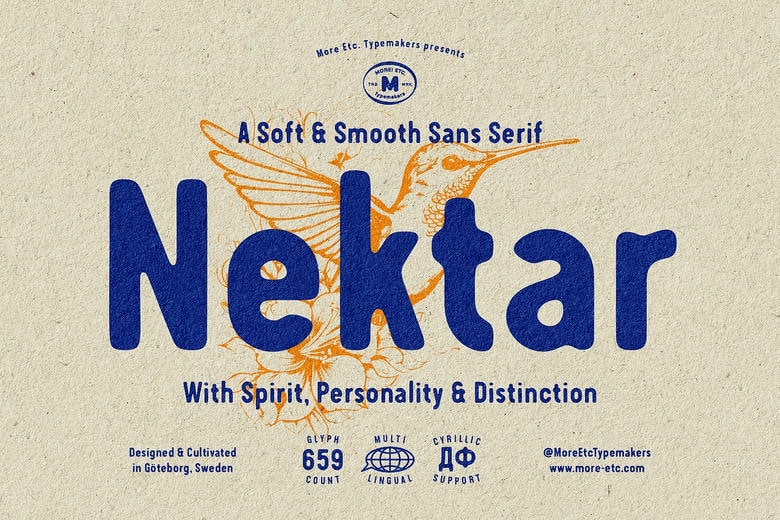
Nektar Font
Nektar is a soft & smooth sans serif typeface with spirit, personality and distinction. Introducing this is a semi-condensed and human sans serif typeface design inspired by the ‘imperfection’ of old prints. The typeface is cheerful and readable, it’s perfect for those contexts where and when you want to leave a positive and personal note.
Nektar Sans Serif Font